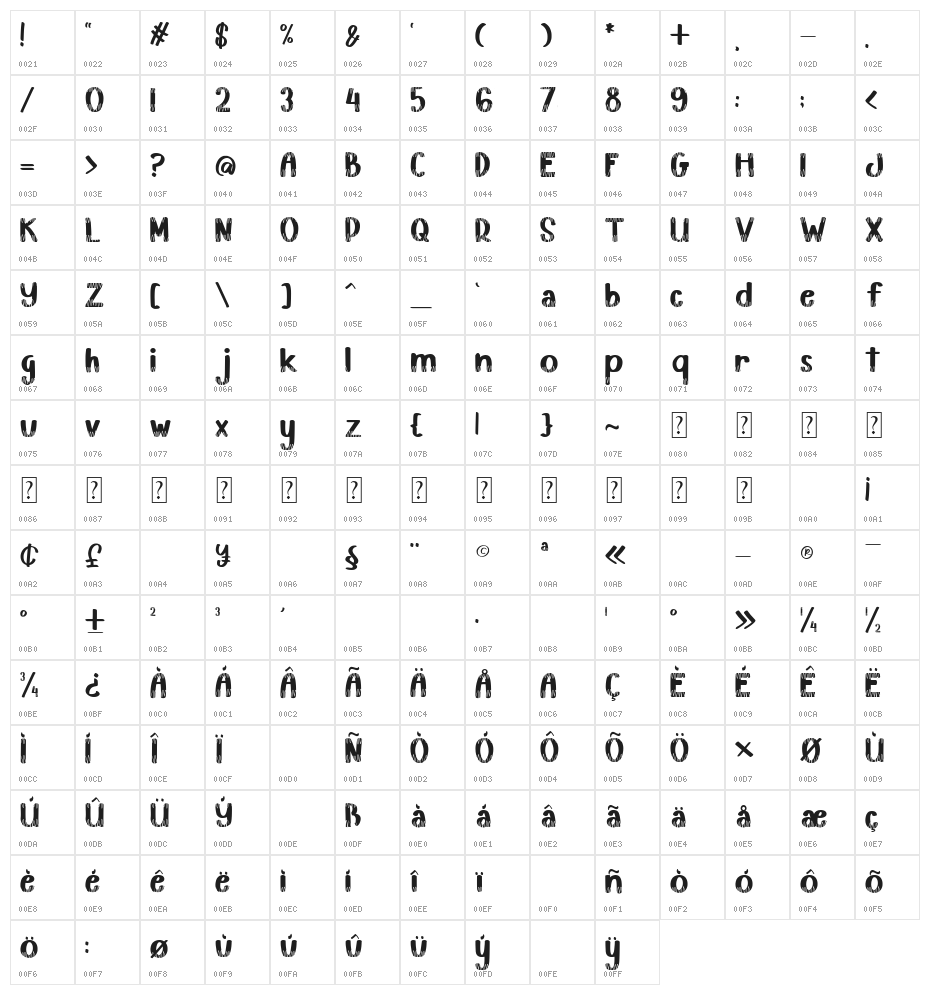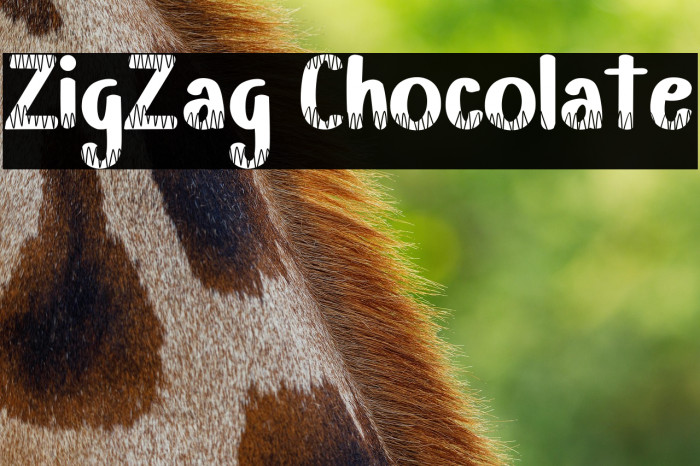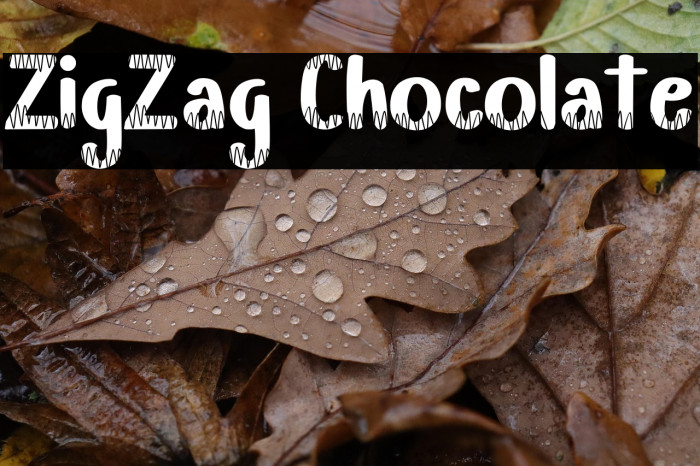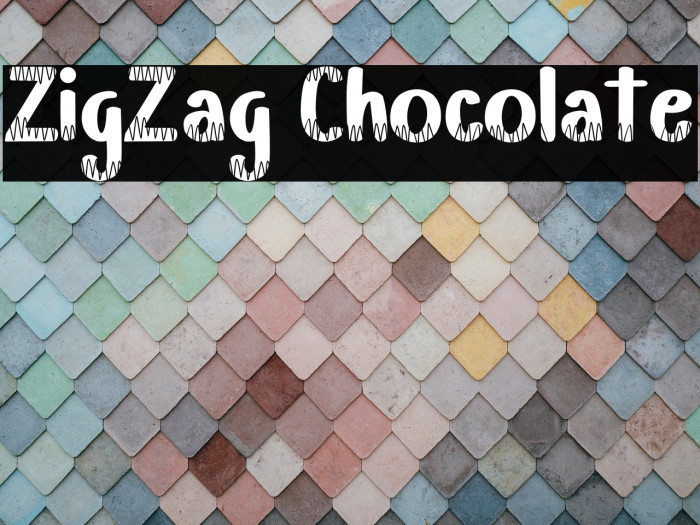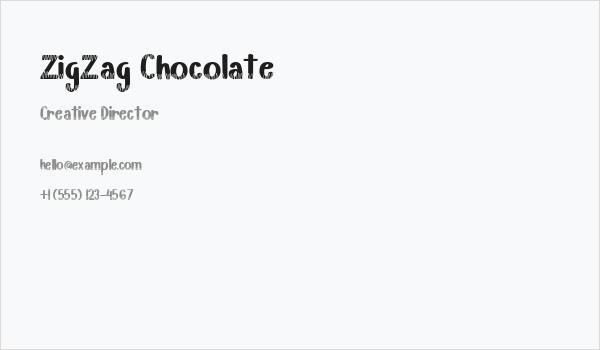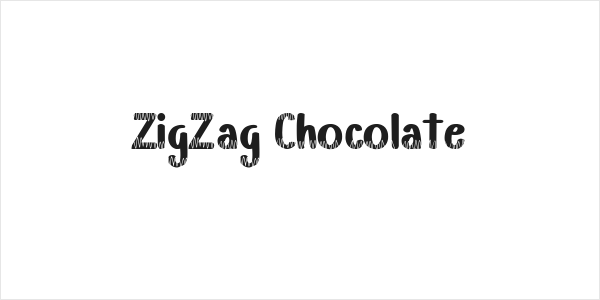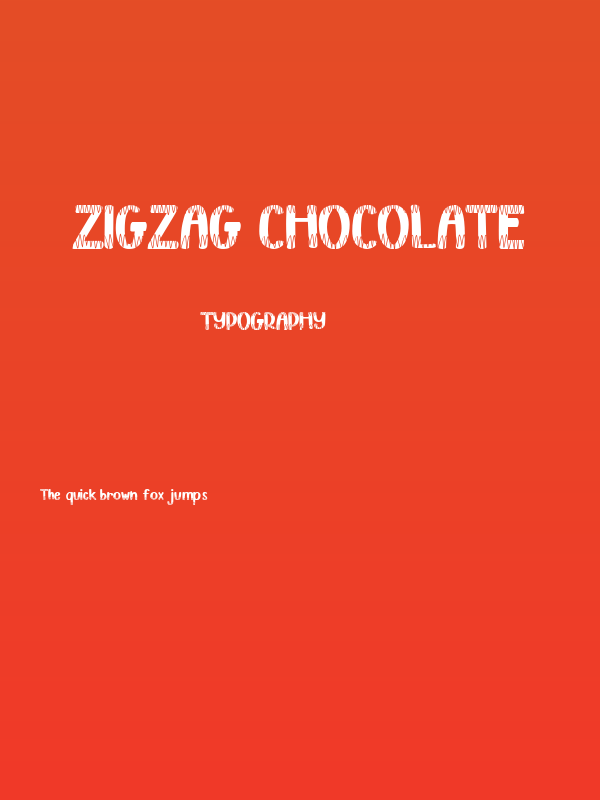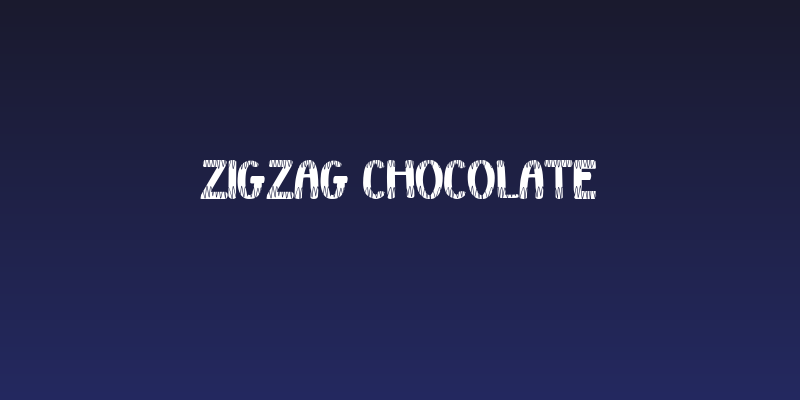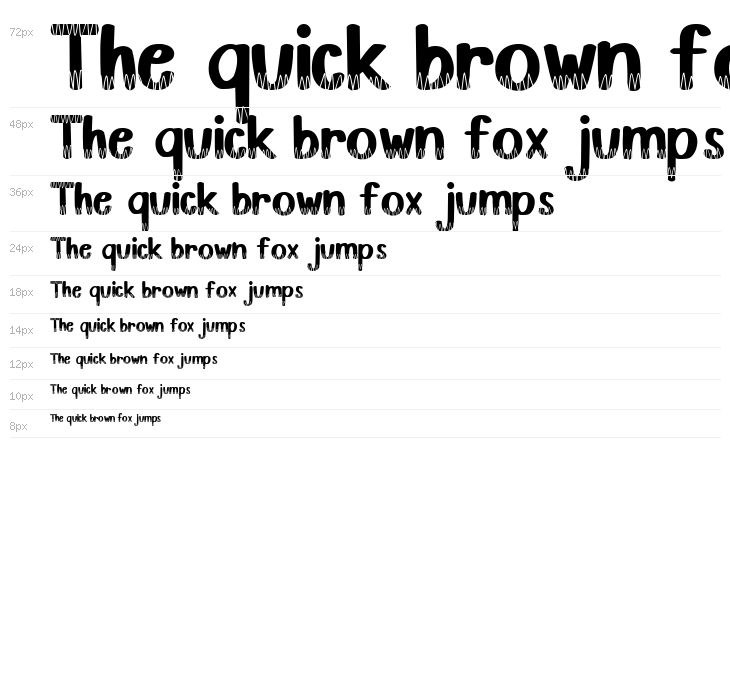
ZigZag Chocolate Font
ZigZag Chocolate Description
This font features a playful and dynamic design with a zigzag pattern running through each character, creating a sense of movement and energy. The bold, rounded shapes of the letters are contrasted by the sharp, angular zigzags, giving it a unique and eye-catching appearance. The uppercase and lowercase letters maintain consistency in style, while the numbers and special characters seamlessly integrate into the overall design. This font's distinctive look makes it ideal for projects that require a fun and lively touch.
| Proposed Projects | Ideal for children's book covers, playful branding, party invitations, and creative posters. |